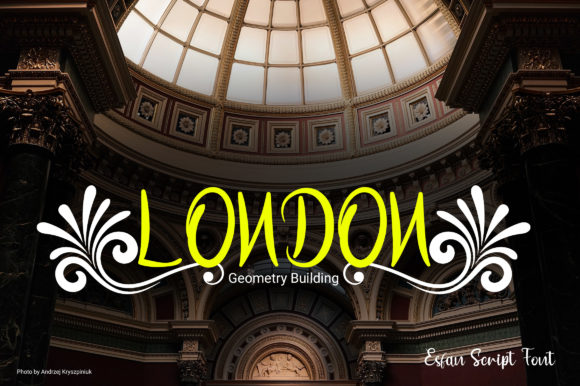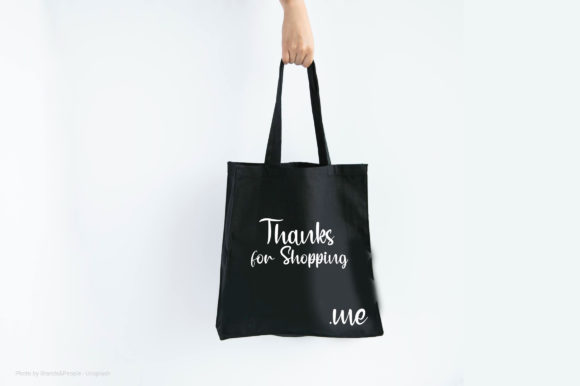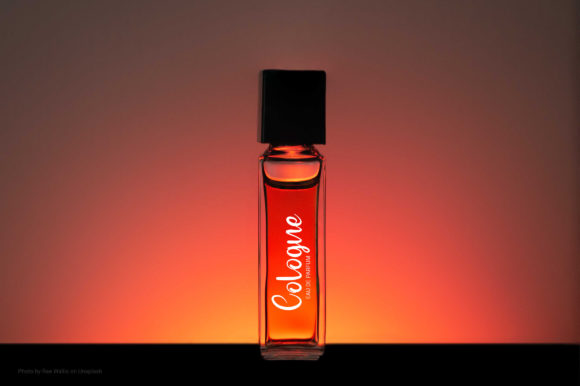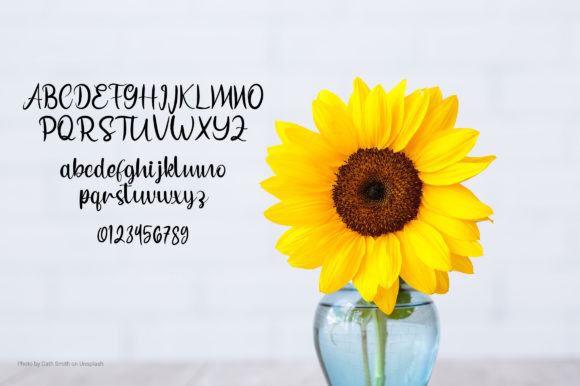
Introducing Esfan Script Font: Elevate Your Designs with Elegance and Sophistication
Are you looking for a typeface that can add a touch of luxury and romance to your design projects? Look no further than Esfan Script Font. This beautiful calligraphy typeface is designed to make your designs stand out with its elegant and sweet characters that dance along the baseline.
What Makes Esfan Script Font Special?
Esfan Script Font is a romantic, elegant, and sweet calligraphy typeface that is perfect for designers and crafters who want to add a touch of sophistication to their work. Its unique characters are designed to flow along the baseline, creating a beautiful and harmonious visual effect.
Whether you’re working on a branding project, a wedding invitation, or a packaging design, Esfan Script Font is the perfect choice. Its luxurious and elegant feel will add a spark to any design project, making it perfect for high-end designs.
Key Features of Esfan Script Font
• Elegant and Sweet Characters: Esfan Script Font features elegant and sweet characters that are designed to dance along the baseline, creating a beautiful visual effect.
• Luxurious Feel: The typeface has a luxurious feel that is perfect for high-end designs, making it ideal for branding, packaging, and advertising projects.
• Romantic and Sophisticated: Esfan Script Font is perfect for romantic and sophisticated designs, such as wedding invitations, Valentine’s Day cards, and other special occasions.
• Highly Versatile: The typeface is highly versatile and can be used for a wide range of design projects, from digital designs to print materials.
How to Use Esfan Script Font in Your Designs
• Pair it with a Simple Font: Pair Esfan Script Font with a simple font to create a beautiful contrast and make your design stand out.
• Use it for Headings and Titles: Use Esfan Script Font for headings and titles to add a touch of elegance and sophistication to your design.
• Experiment with Colors and Textures: Experiment with different colors and textures to add depth and interest to your design.
Why Designers and Crafters Love Esfan Script Font
Designers and crafters love Esfan Script Font for its unique and elegant design. Here are a few reasons why:
• Unique and Exclusive: Esfan Script Font is a unique and exclusive typeface that will make your designs stand out from the crowd.
• Easy to Read: The typeface is easy to read, making it perfect for designs that require a lot of text.
• High-Quality Design: Esfan Script Font is designed with high-quality graphics, making it perfect for high-end designs.
In conclusion, Esfan Script Font is a beautiful and elegant calligraphy typeface that is perfect for designers and crafters who want to add a touch of luxury and romance to their designs. Its unique characters, luxurious feel, and highly versatile design make it perfect for a wide range of design projects. Whether you’re working on a branding project, a wedding invitation, or a packaging design, Esfan Script Font is the perfect choice.